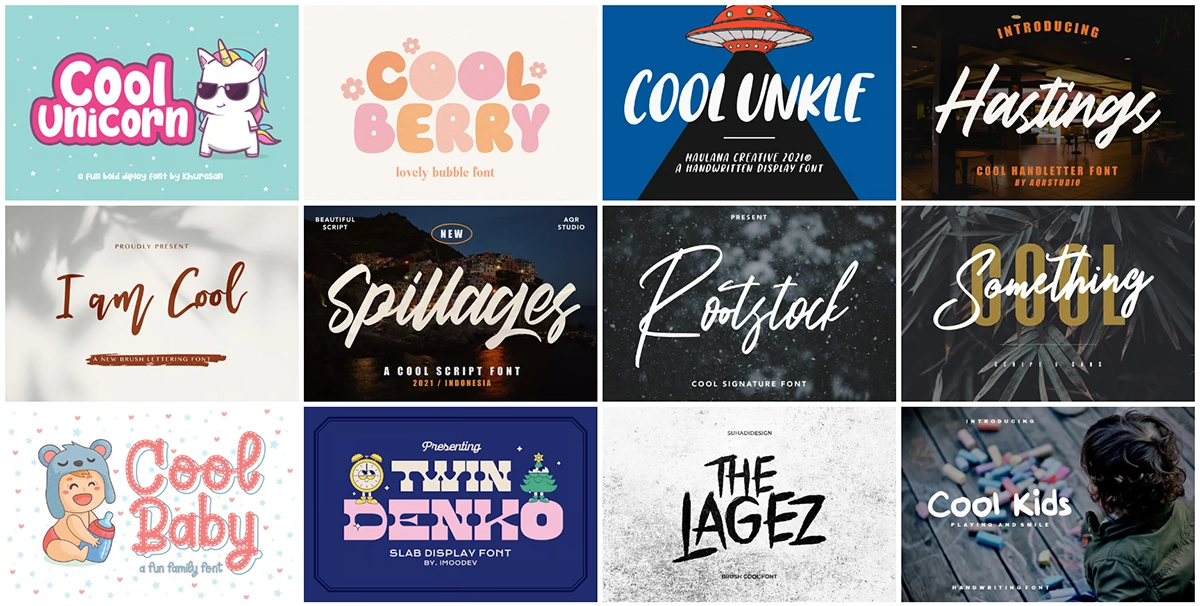
Looking for the best cool fonts to make your designs pop? You’re in the right place! Whether you’re crafting logos, creating invitations, or working on branding projects, the right font can make all the difference. We’ve compiled a list of the 9 best cool fonts that are perfect for adding a touch of style and uniqueness to your work. From bold and modern to quirky and fun, these fonts will give your designs the edge they need. So, if you’re ready to take your design game to the next level, let’s dive into our list of the best cool fonts that are sure to inspire creativity!
District – Cool Script Font is a handwritten typeface that adds a distinct character to any design. With its thick, flowing strokes, it brings a sense of casual elegance while maintaining a bold, playful touch. This font is incredibly versatile, making it ideal for projects ranging from branding and logos to social media graphics, invitations, and posters.
Whether you’re looking to elevate a simple design or add a unique flair to your project, District can help bring your creative ideas to life. Its stylish script format offers a relaxed yet polished feel, allowing you to create designs that stand out with personality and sophistication.
Mongek Typeface is a sleek and modern serif font that combines simplicity with elegance. Featuring 603 glyphs, it includes a variety of swashes, ligatures, and alternative characters. Ideal for both design and non-design programs, it’s versatile for headers, descriptions, and many creative projects. Mongek works well in software like Adobe Illustrator and Photoshop, providing ease of use even without a Glyphs panel.
Ovation – Calligraphy Font is designed to elevate your projects with a blend of elegance and relaxed, flowing handwriting. This font brings a unique character, making it a great choice for diverse design needs. With both uppercase and lowercase letters, numbers, punctuation, and ligatures, it also supports multiple languages.
What sets Ovation apart is its flexibility: it offers four different spacing options — normal, condensed, monospace, and expanded. You can resize and optimize it for any project, ensuring it fits perfectly whether you’re designing logos, invitations, posters, or websites. Add Ovation to your toolkit and watch your creative ideas come to life!
Cool Kid – Fun Display Font is a playful typeface, perfect for children’s projects. It includes uppercase and lowercase letters, numbers, punctuation, and alternates, with multilingual support. This font works best in larger formats like posters and logos, adding a friendly vibe to your designs. To access alternate characters, use software supporting OpenType features, such as Adobe Illustrator or Photoshop. Ideal for fun branding, packaging, and more!
Dope Script is a bold, hand-brushed font with rough, raw edges that add an authentic, street-style flair to your design projects. Its natural brush strokes make it ideal for logos, posters, merchandise, and any display text where you want a dynamic and edgy vibe. The font includes uppercase and lowercase letters, numerals, punctuation, and accents, offering versatile usage across different languages and design needs. For an added creative boost, Dope Script also comes with bonus swashes that allow you to stylize your text further, making your designs stand out with extra flair.
Cool Sensation is a graffiti-inspired freestyle font that brings the bold, expressive energy of street art into your designs. Its unique and free-flowing character set includes uppercase and lowercase letters, numerals, punctuation, ligatures, and alternates, making it versatile for a wide range of creative projects. This font is designed for flexibility with multilingual support and four spacing options, allowing it to adapt to various layouts and sizes. Whether you’re creating posters, logos, or street-style branding, Cool Sensation adds an edgy, urban vibe to your work.
Northrow is a sophisticated signage-style font ideal for home décor, branding, and product packaging. It stands out with its classy and elegant design, featuring 94 beautiful ligatures that give it a hand-lettered feel. This font includes standard uppercase and lowercase letters, numerals, punctuation, and 13 stylish swashes for added flair.
Konde is a unique typeface that captures the essence of retro style with its distinctive and elegant design. This font is not only great for text but also shines on book covers and projects that embrace a vintage aesthetic. It features three sub-fonts ranging from thin to black, giving you flexibility in your design choices.
With 549 glyphs and various alternate options, **Konde** is a fantastic option for creating eye-catching headers and descriptions. Its PUA encoding ensures that you can easily access glyphs across both design and non-design software, making it user-friendly. The font is available in OTF, TTF, WOFF2, and PDF formats, and it works best with Adobe applications (like Illustrator, Photoshop, and InDesign) and Corel Draw. If your software lacks a glyph panel, you can also install additional swash files to unlock its full potential.
Stigfier is a sophisticated, modern serif font designed to enhance small titles, subtitles, and text descriptions. With its clean, stylish structure, it works well for creating polished promotional content such as advertisements or social media campaigns.
What makes Stigfier stand out is its all-caps style, fine lines, and smooth ligatures, which give your text a fresh and elegant aesthetic. It also supports multilingual characters, ensuring versatility across various languages. With available formats like OTF, TTF, WOFF, and WOFF2, this font is ideal for those seeking a classy, contemporary look in their designs.